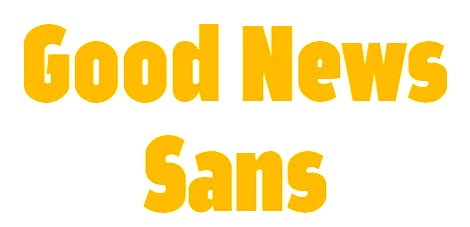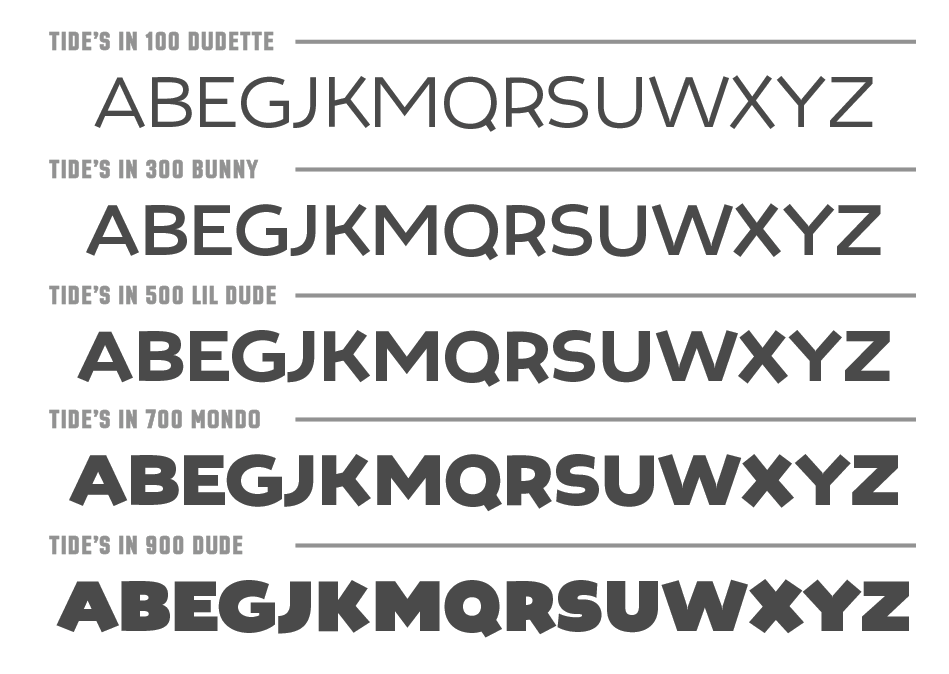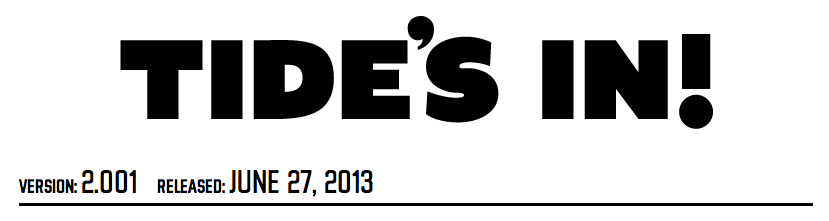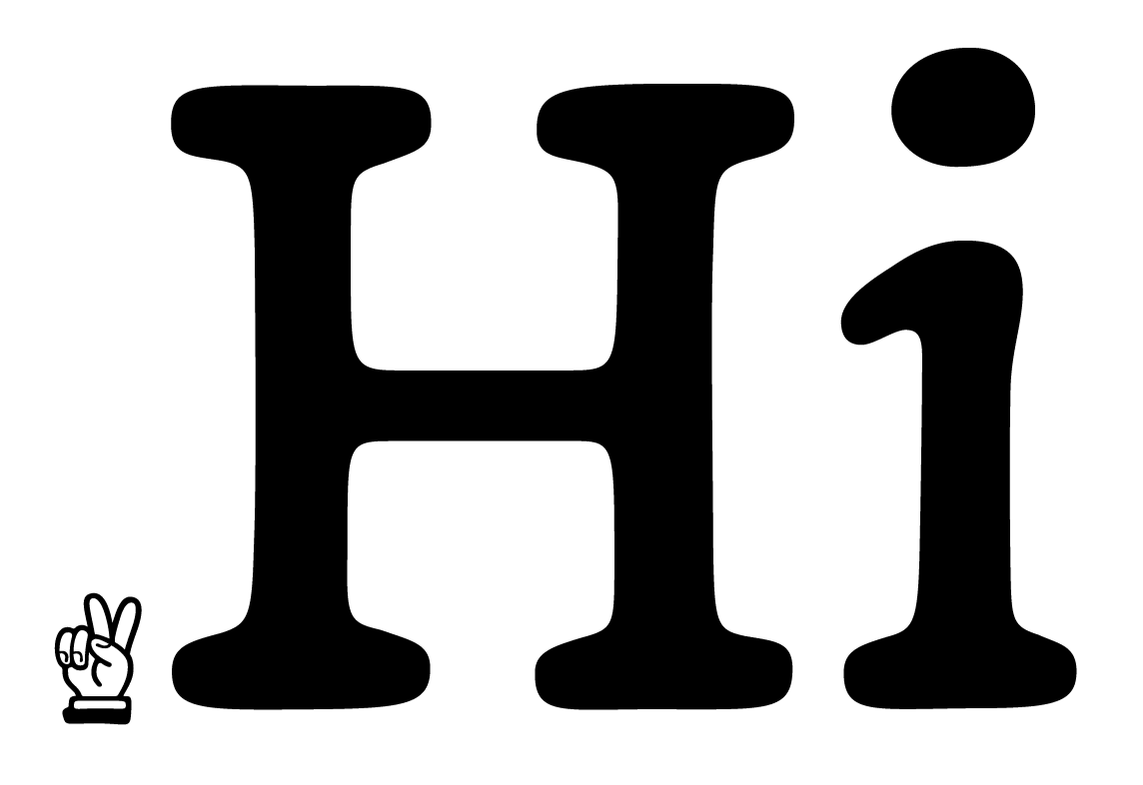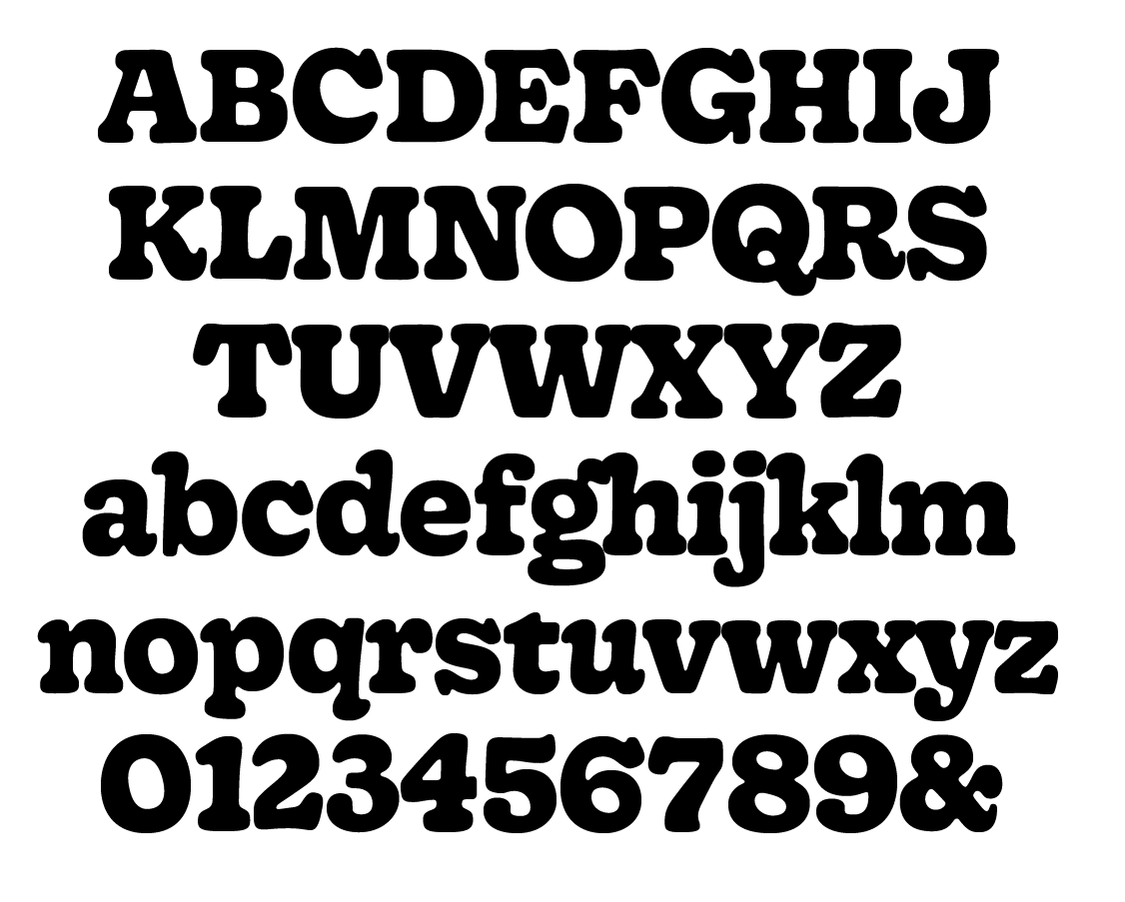
Very Cool Studio [Kyle Wayne Benson]
Kyle Wayne Benson (b. 1988, Texas) describes himself as an affable graphic and type designer. He has his own commercial foundry, also called Kyle Wayne Benson, which specializes in signage type. Very Cool Studio was located in Orem, UT, and more recently in Oakland, CA. Future Fonts link.
Creator in 2013 of Benson Script (with three contrast levels, from didone to monoline), the octagonal angular typefaces Millie and Truth, and of Clayton, Red Benny, Tide's In, Tide Sans (the surf-inspired humanist with a humorous selection of weight names ranging from Lil Bunny, to Dudette, Bunny, Mondo, Kahuna and Dude), Tide Sans Condensed, and Farmer's Co-Op (a vernacular sans with wood type influences).
Typefaces from 2014: Jeames (a high-contrast decorative typeface with vintage serifs), Maritime Champion, Maritime Champion Stencil, Good News Sans (a set of 18 display sans typefaces, mostly for titling or short pieces), Kansas Casual (a sign painting font), Maritime Champion (inline typeface), National Champion (octagonal athletic lettering family).
Typefaces from 2015: Qualtrics.
Typefaces from 2018: Gooper (a take on Cooper Black; at Future Fonts).
Typefaces from 2019: Bruphy (a variable font modeled after hand-painted brush lettering and released at Future Fonts).
Typefaces from 2020: Gooper Text, Bruphy Text.
Typefaces from 2021: Nudge (a condensed gothic sans based on a dog defecation sign composed of letters hand cut out of vinyl at Silver Lake Reservoir in LA), Gooper Deck.
Typefaces from 2022: Henrietta (a revival of a 1980s font that ripped off Souvenir; I would like to have a good definition of the difference between revival and ripoff).